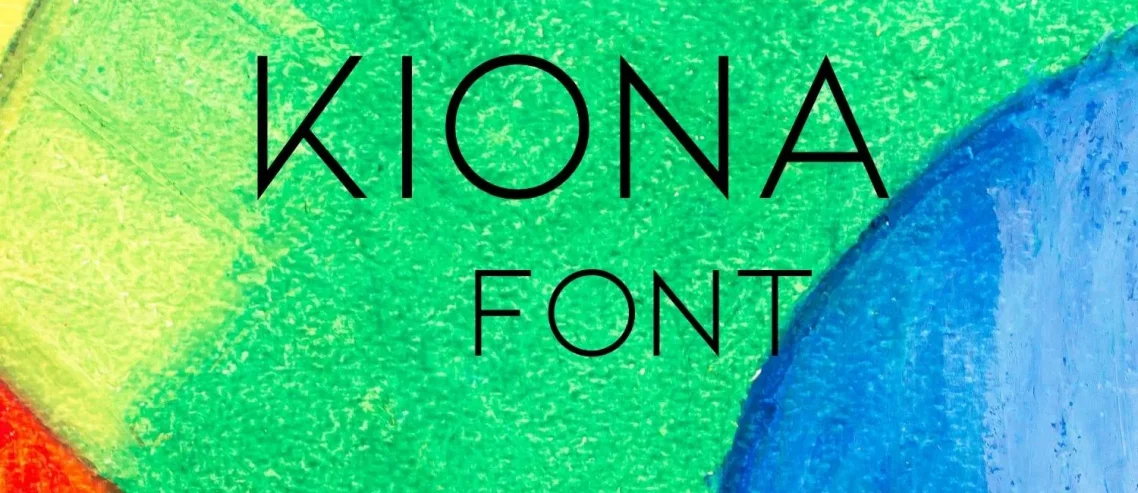
Kiona Font is a font that was created by Ellen Luffin in 2018. The font includes upper and lowercase letters, numbers, and punctuation marks. This Font is perfect for creating comic books, graphic novels, and other types of artwork.
If you are looking for a font that will add a touch of personality to your work, then this Font is the right choice for you! This font is very close to the Klasik Font.
Kiona Font Info
| Name | Kiona Font |
| Designer | Ellen Luffin |